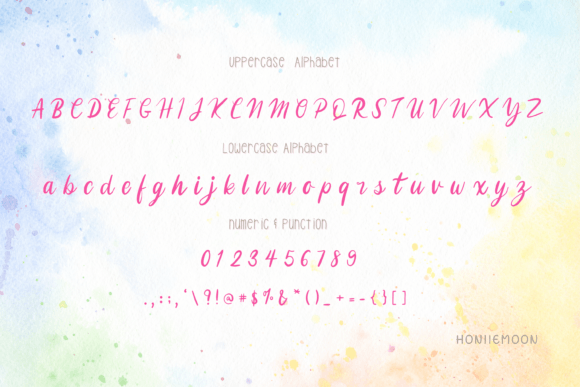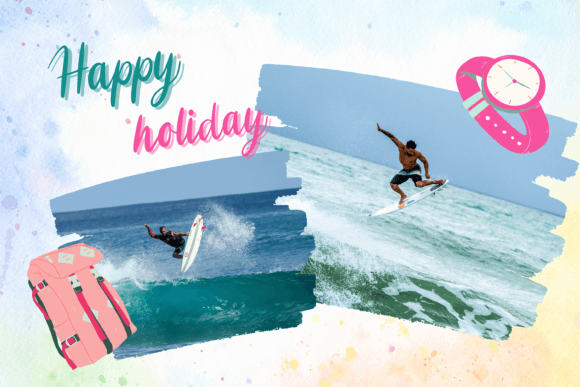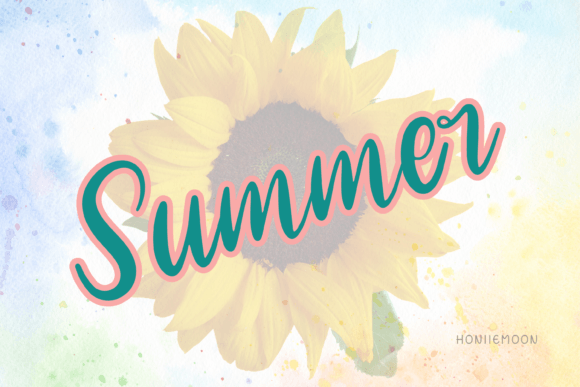
The Perfect Font for a Festive Touch
As a designer, there’s no feeling quite like the thrill of bringing a new project to life. The moment when all the pieces come together, and your creation starts to take shape – it’s pure magic. And sometimes, all it takes is the right font to elevate your design from ordinary to extraordinary. This is where the Holiday Font comes in – a charming, handwritten font that’s sure to add a touch of whimsy and personality to any project.
Whether you’re creating a festive holiday card, a birthday invitation, or a simple social media post, the Holiday Font is an incredible asset to have in your toolkit. Its versatility and charm make it a valuable addition to any designer’s library, and its potential to elevate any creation is unmatched.
Holiday Font Key Features
- Font Family: Holiday Font is a unique, hand-drawn script font, ideal for festive and celebratory designs.
- Size: The font family includes multiple weights, from Light to Heavy, allowing for a range of design possibilities.
- Resolution: Suitable for both screen and print use, with a high-resolution design that ensures crisp, clear text at any size.
- Characteristics: The font features swashes, flourishes, and other decorative elements, making it perfect for creating eye-catching holiday designs.
Designer Review: Holiday Font
Overall, I think the Holiday Font has some great qualities, but it also falls short in some areas. Let’s break it down:
- Unique and festive design: The font’s use of ornaments and decorations makes it perfect for holiday-themed projects, such as Christmas cards or New Year’s invitations.
- Easy to read: Despite the decorative elements, the font is surprisingly easy to read, even at smaller sizes.
- Customization options: The font comes with various color schemes and ornament styles, allowing users to customize it to fit their specific needs.
- Limited legibility at very small sizes: While the font is generally easy to read, it can become difficult to read when reduced to very small sizes.
- Not suitable for body text: Due to its decorative nature, the font is best used for headings and titles, rather than large blocks of body text.
- May not be suitable for digital use: The font’s design may not be optimized for digital use, which could result in pixelation or other display issues.
The Holiday Font is a great choice for holiday-themed projects, but it’s not a versatile font that can be used for a wide range of applications. With some careful consideration of its limitations, it can be a great addition to any designer’s toolkit.
Holiday Font is ideal for creating festive and seasonal designs, such as holiday cards, gift tags, and party invitations. It’s also great for adding a touch of holiday cheer to social media posts, emails, and website content.
Tips for Getting the Most Out of Holiday Font
To get the most out of Holiday Font, experiment with different font sizes, colors, and styles to create a unique and eye-catching design. You can also pair Holiday Font with other festive fonts and graphics to create a cohesive and engaging visual identity.